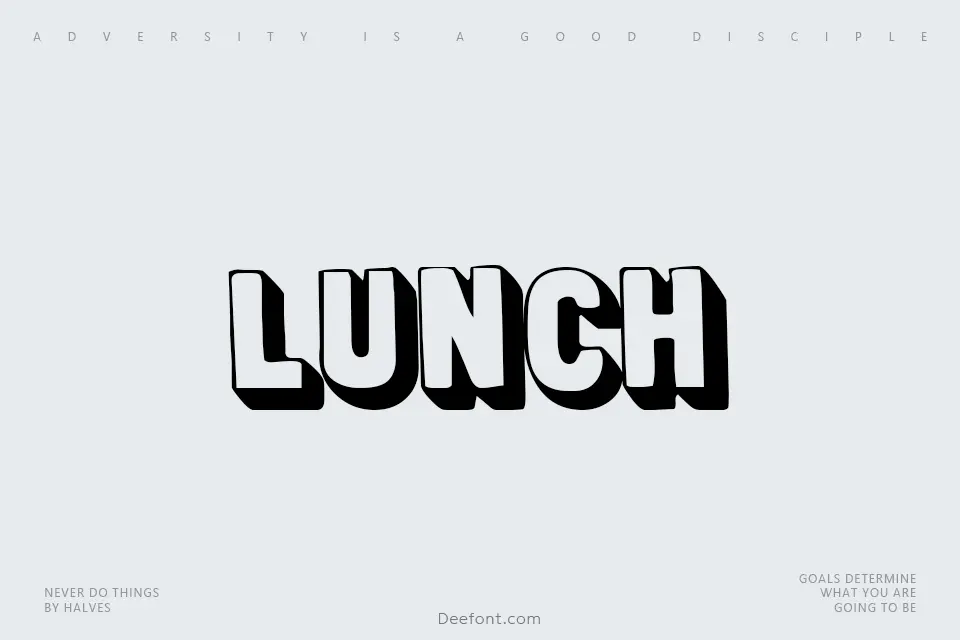
Lunch Font
Lunch Font is a bold, decorative typeface characterized by its striking three-dimensional appearance and playful cartoonish style. Designed by Anthem Type, this all-caps font features thick, blocky letterforms with shadow effects that create a dynamic “pop-off-the-page” illusion. Its uppercase characters, numerals, and symbols maintain consistency in their chunky, high-impact design, making it ideal for eye-catching headlines, logos, or children’s-themed projects. The font’s whimsical yet robust aesthetic lends itself well to comic titles, posters, advertisements, or any design requiring a fun, energetic vibe. Available as a free download, Lunch Font balances retro charm with modern versatility, offering a tool for designers to inject personality into creative projects.